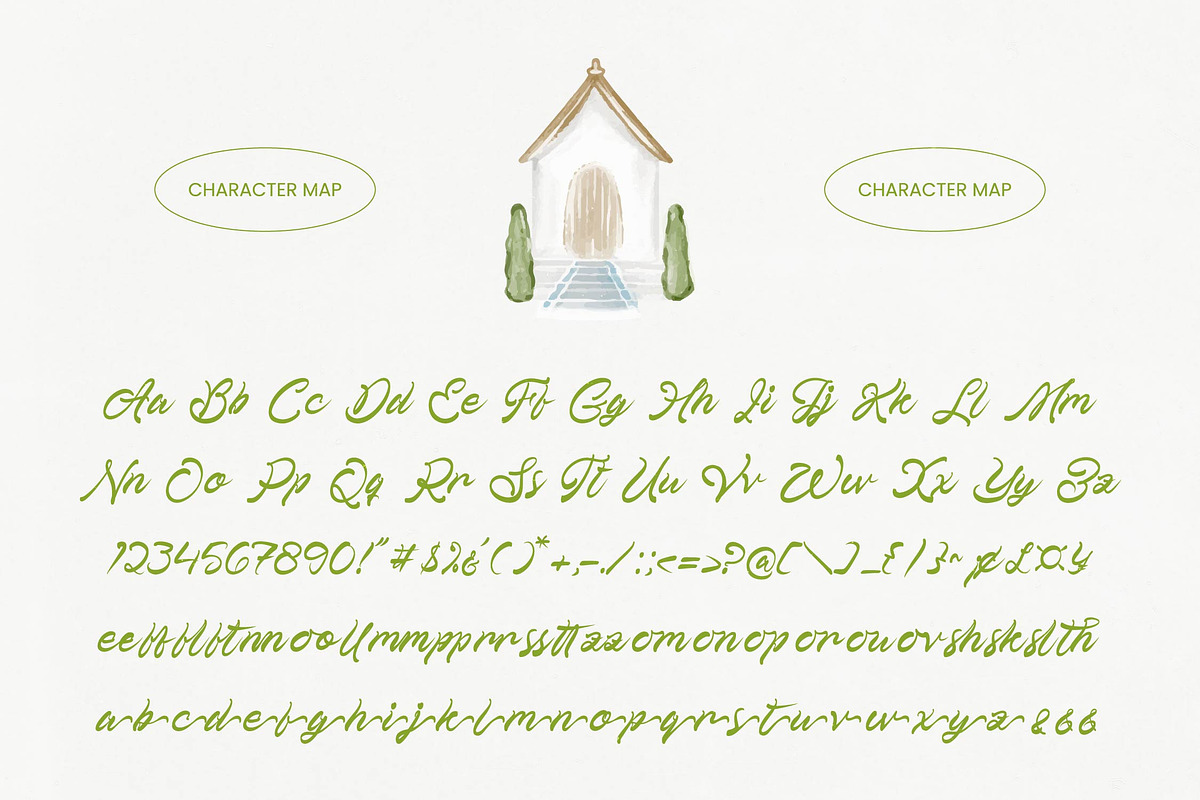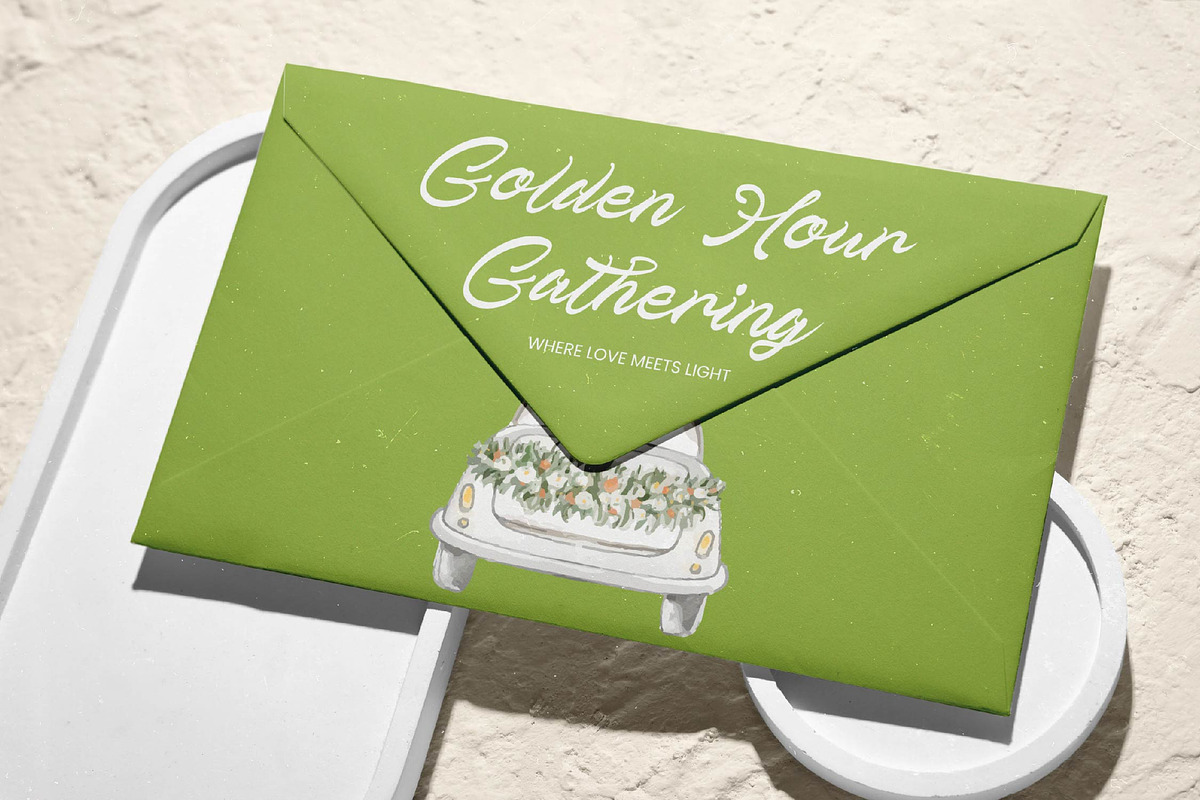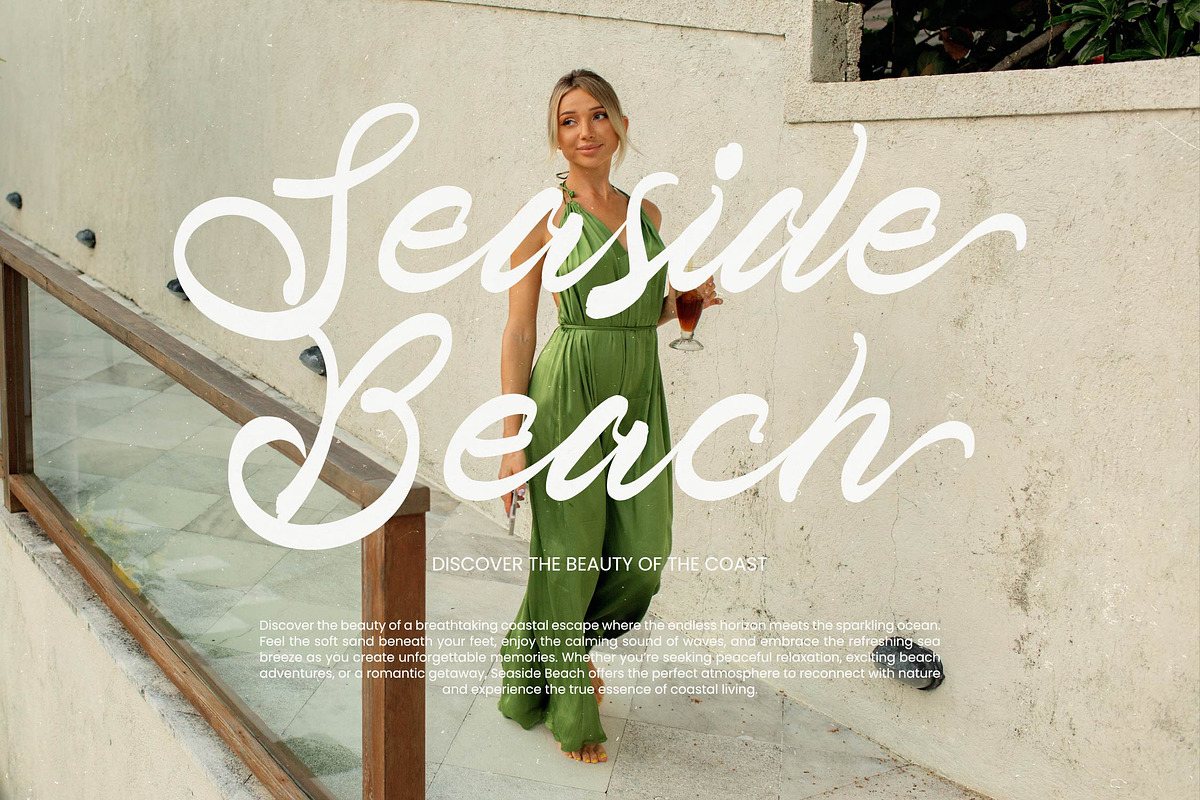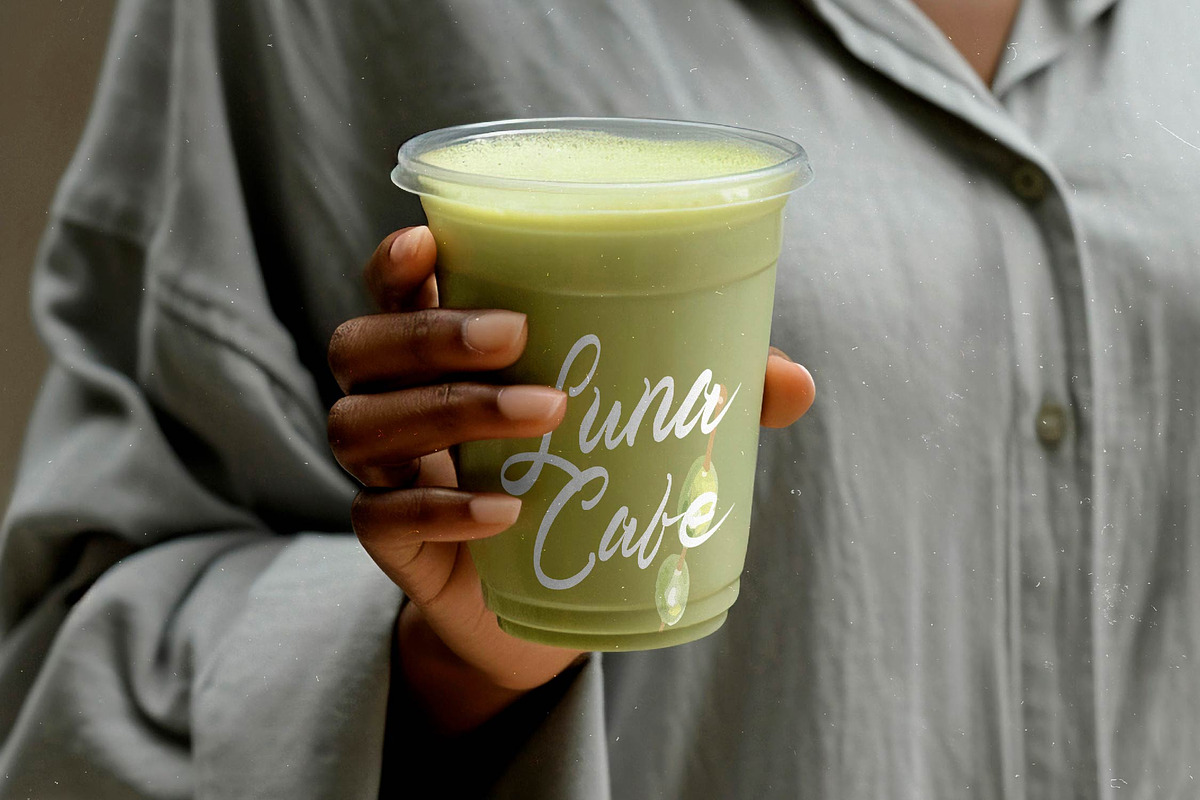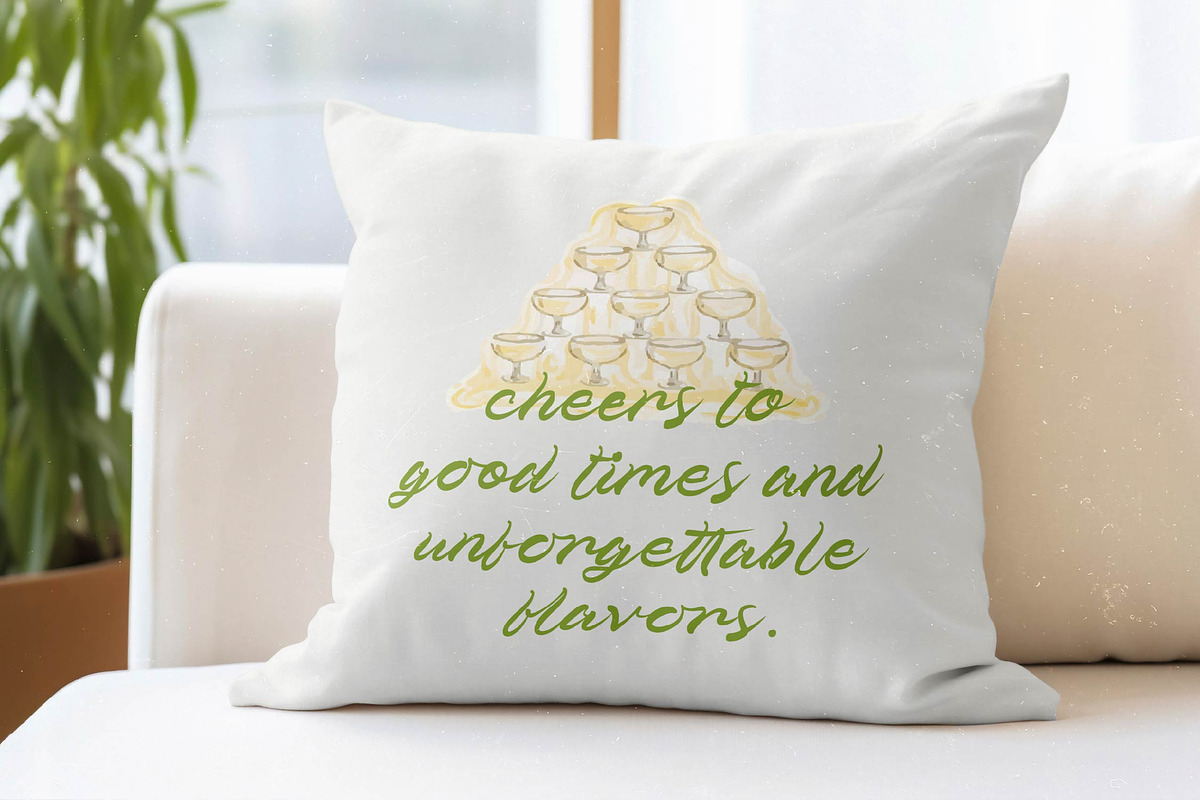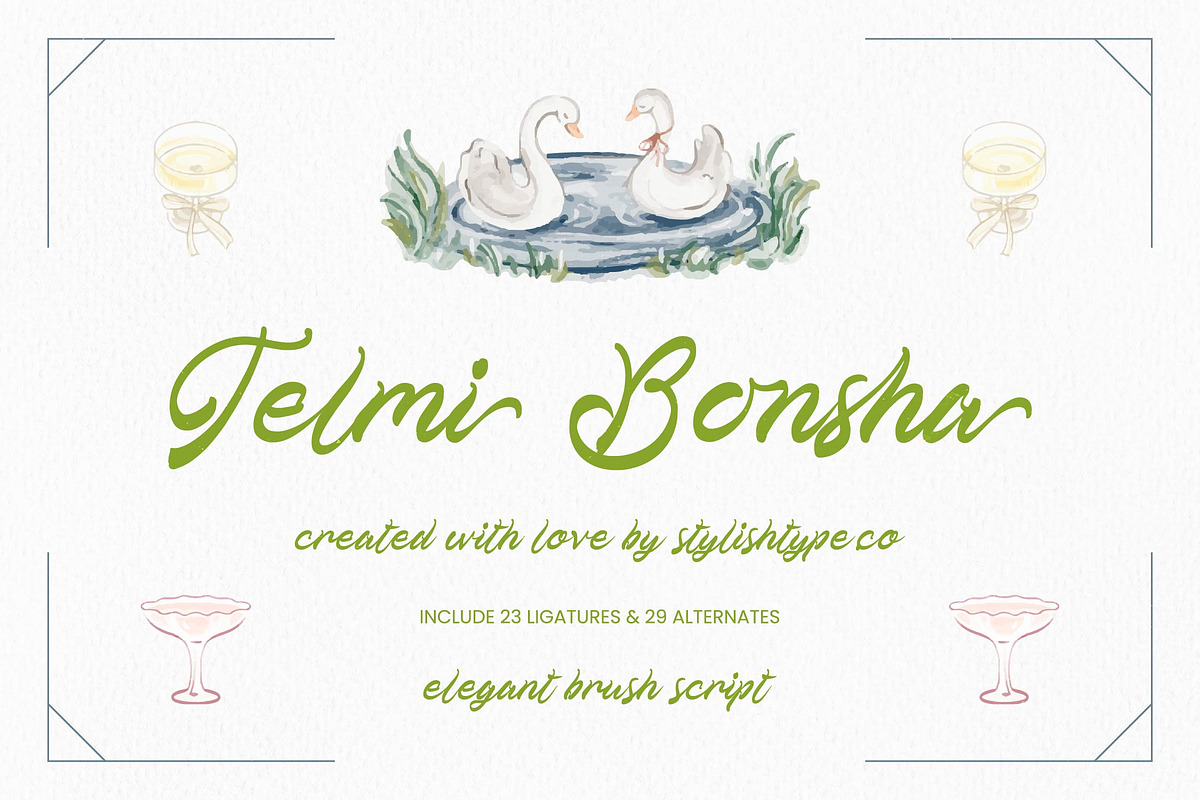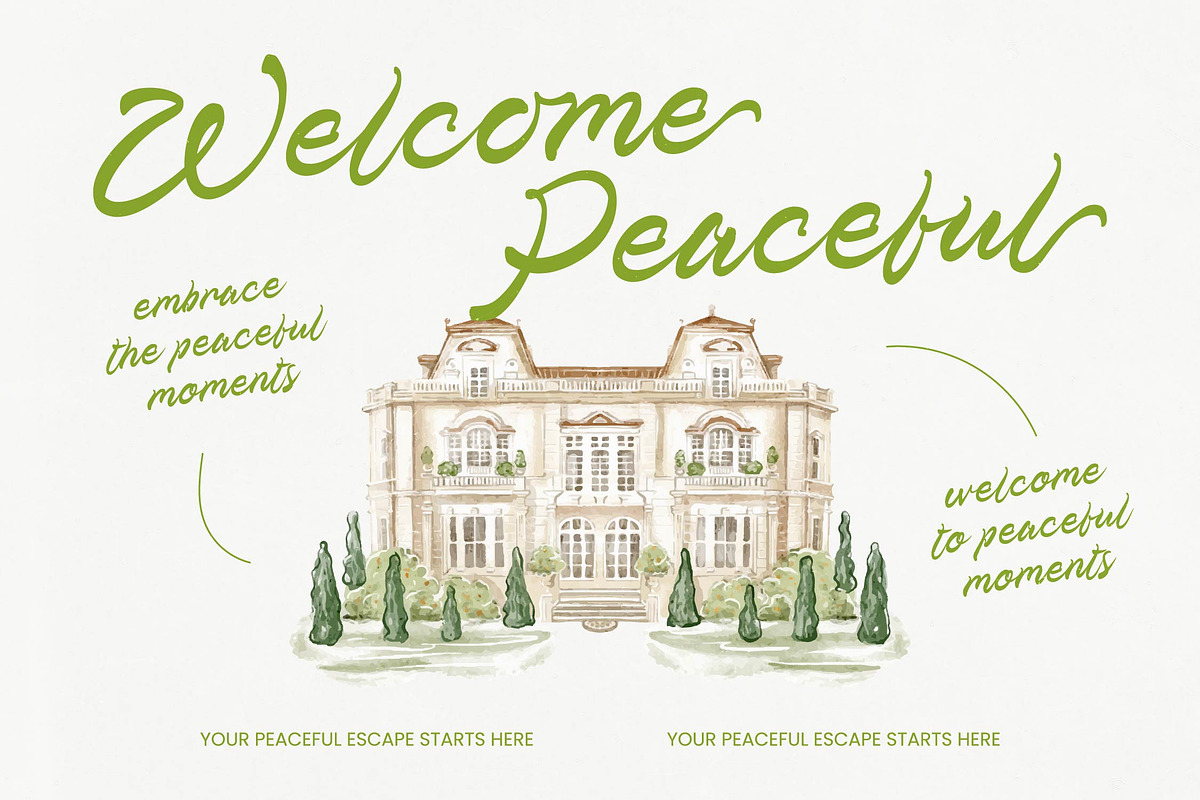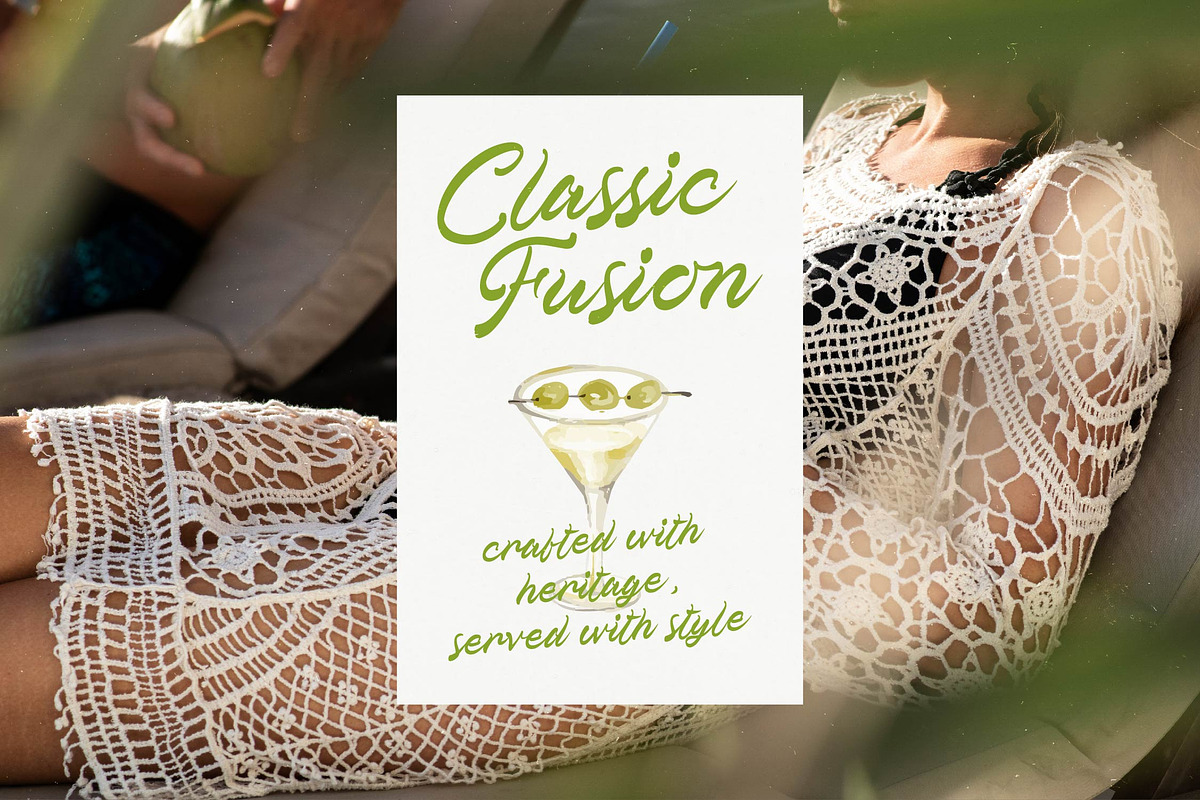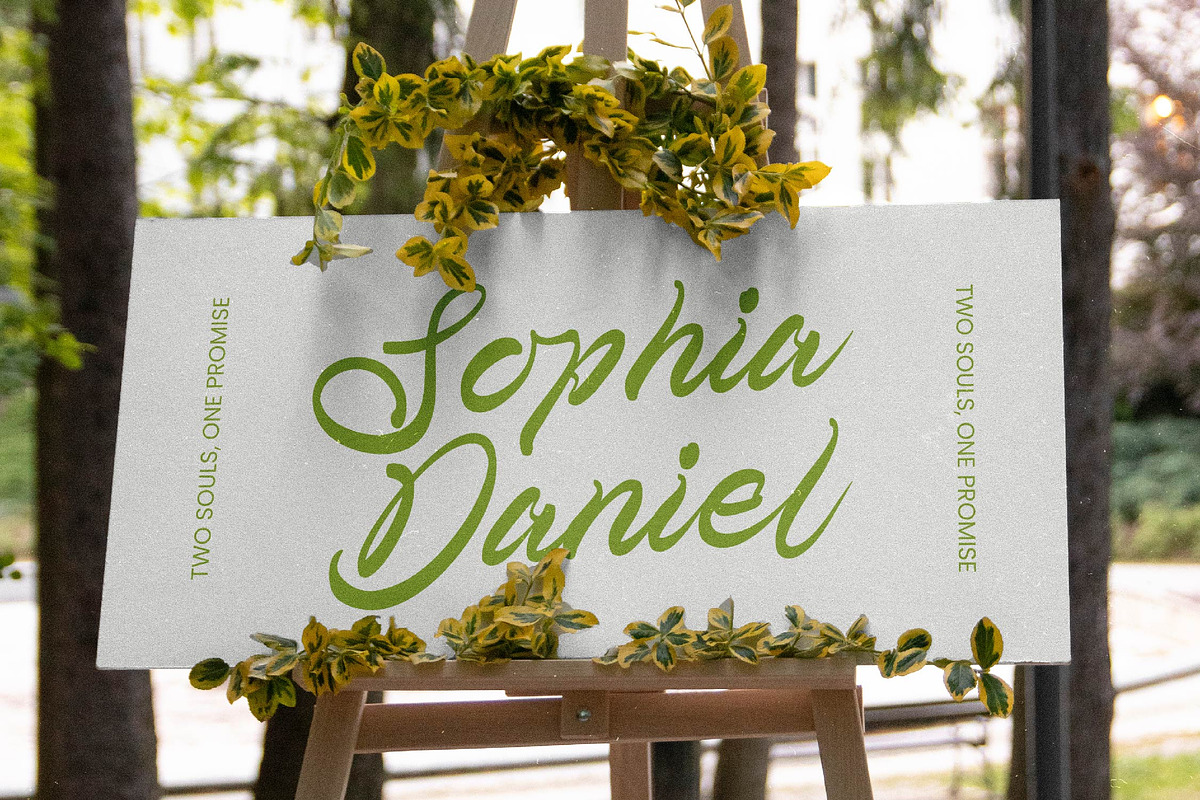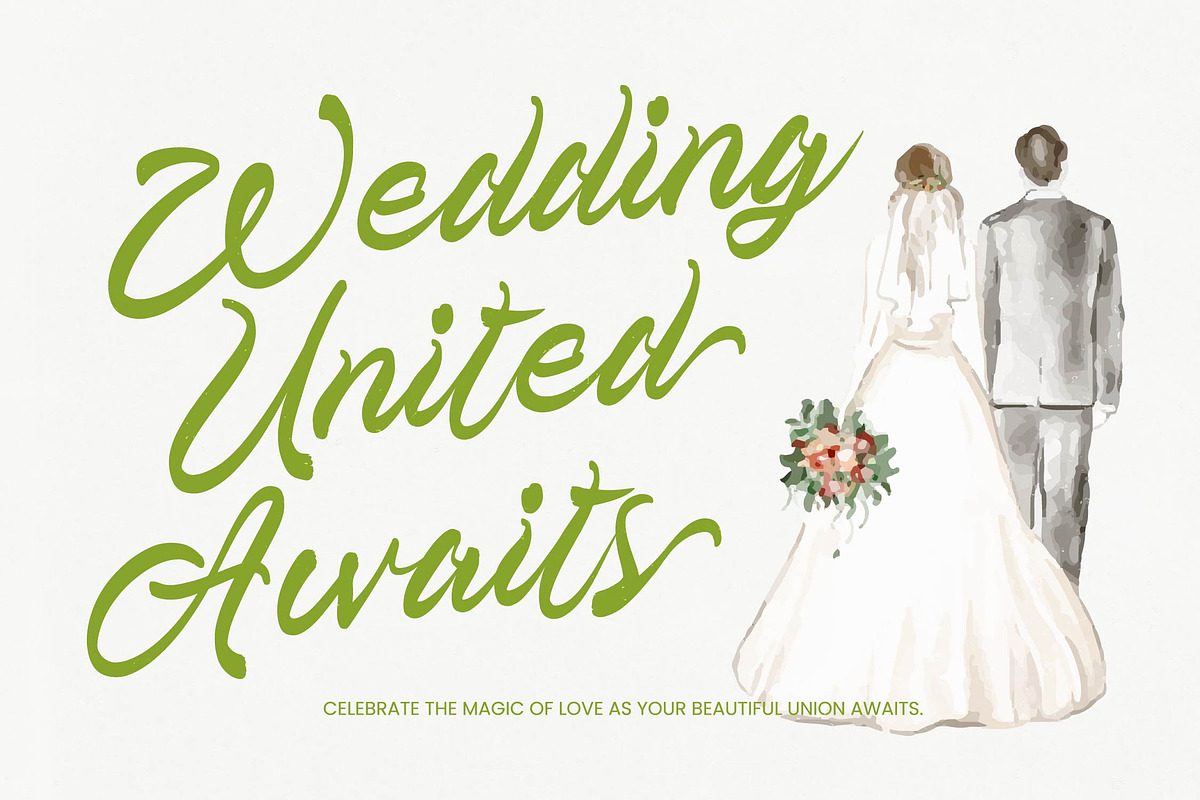
Telmi Bonsha Elegant Brush Script
Telmi Bonsha - Elegant Brush Script , Elevate your creative vision with a typeface that embodies sophisticated artistry and timeless grace. Telmi Bonsha - Elegant Brush Script is a masterfully crafted hand-drawn script that balances organic textures with a fluid, rhythmic motion. Its natural brush strokes provide a bespoke feel, making every word appear as if it were meticulously penned by an expert calligrapher. This font is the definitive choice for designers seeking to infuse their work with a sense of authenticity and high-end craftsmanship.
Precision meets luxury in this highly versatile design tool, which is engineered for a wide array of upscale projects. Telmi Bonsha - Elegant Brush Script is the ideal choice for luxury branding, premium packaging, and high-end editorial design. Whether you are crafting signature logos, elegant wedding invitations, or compelling social media imagery, this font provides the visual impact necessary to stand out. It is perfect for brands that prioritize elegance and a distinctive personal touch.
Expand your creative horizons with a typeface built for the modern global landscape and diverse communication needs. With its extensive multilingual support, Telmi Bonsha - Elegant Brush Script adapts seamlessly across global markets, making it incredibly versatile for international projects. This technical robustness ensures that your brand message remains consistent and professional, regardless of the geographic location or language of your target audience, providing unrivaled flexibility for any campaign.
Unlock unparalleled customization through an extensive library of OpenType features designed for discerning professional designers. Telmi Bonsha - Elegant Brush Script includes 23 custom ligatures and 29 stylistic alternates, allowing you to create unique typographic compositions that mirror the beauty of custom lettering. By integrating these artistic variations, you can achieve a truly one-of-a-kind aesthetic that captures attention and reinforces brand identity. Invest in Telmi Bonsha - Elegant Brush Script to transform your design projects into visual masterpieces.